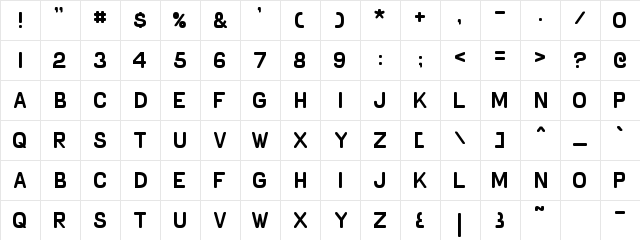
Tech Manual Regular
| Designer | Neale Davidson |
Design Context for Tech Manual Typeface
Tech Manual has a distinctly futuristic character, with geometric precision and clean angles that feel at home in technology, gaming, and sci-fi contexts.